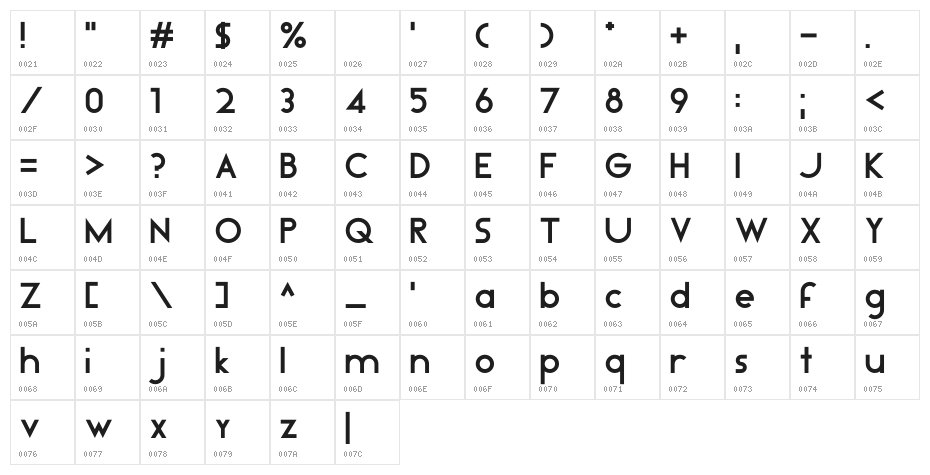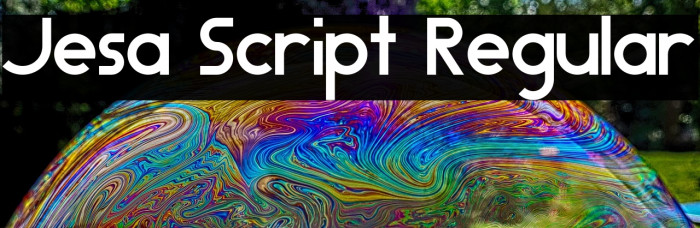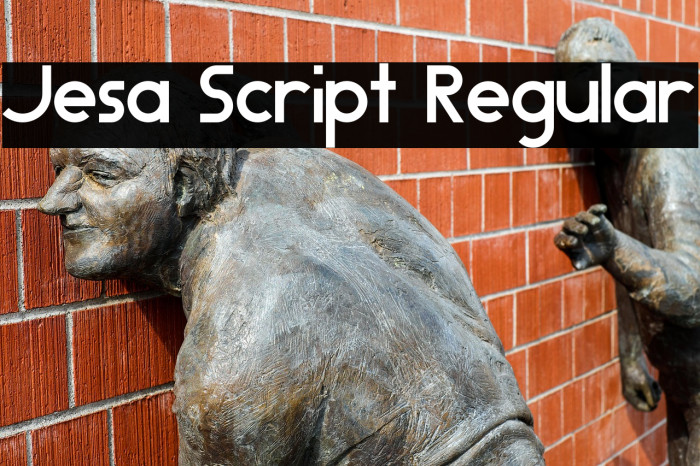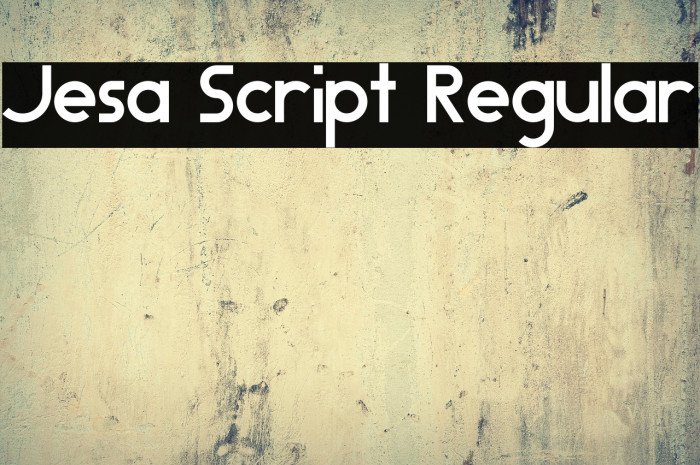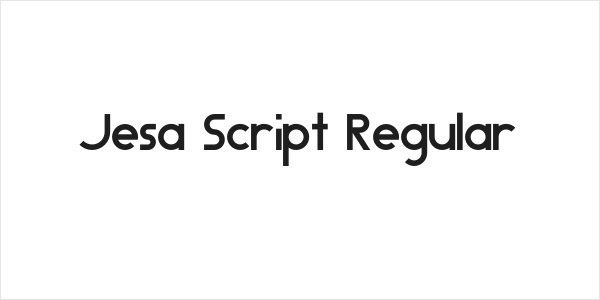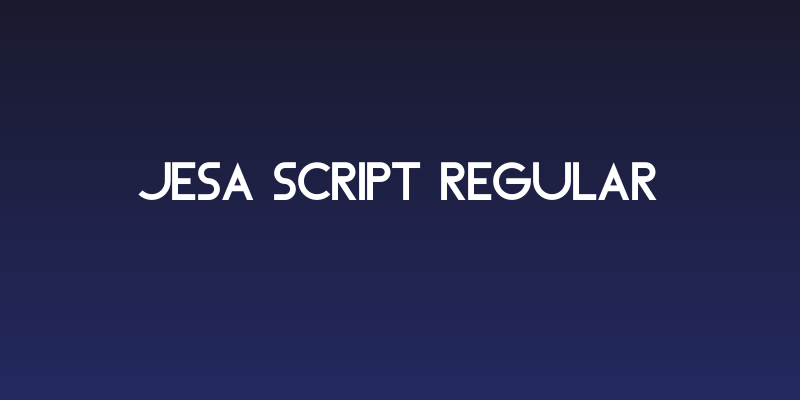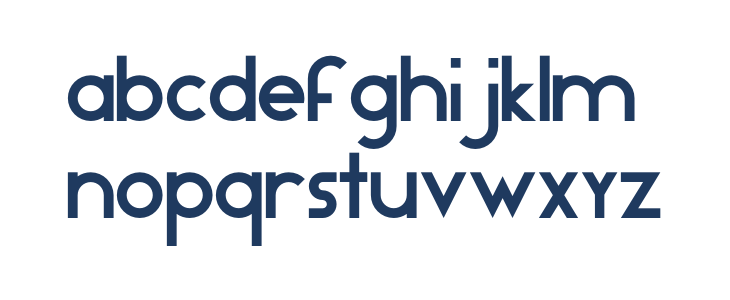
Jesa Script Regular Font
Jesa Script Regular Description
This font features a clean, geometric design with a modern aesthetic. The characters are bold and evenly weighted, providing a strong visual impact. The uppercase letters are uniform in height, while the lowercase letters maintain a consistent baseline, enhancing readability. The numerals are distinct and align well with the overall style, making them suitable for various applications. Special characters are designed with the same geometric precision, ensuring a cohesive look across all text elements. The font's simplicity and clarity make it versatile for both digital and print media.
| Use Case | Headlines, Logos, Digital interfaces |
| Proposed Projects | Ideal for branding, advertising, headlines, and digital interfaces. |